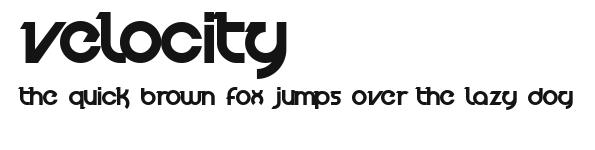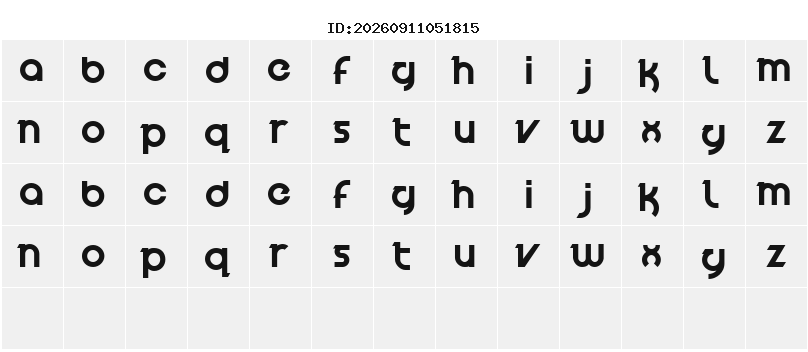
Velocity Preview
• Font Name: Velocity
• Full Font Name: Velocity
• Designer: Alan Brown
About Velocity.ttf
Velocity.ttf is a modern, elegant sans-serif font designed for ultimate readability and visual harmony. Perfect for branding, headlines, web design, and print materials.